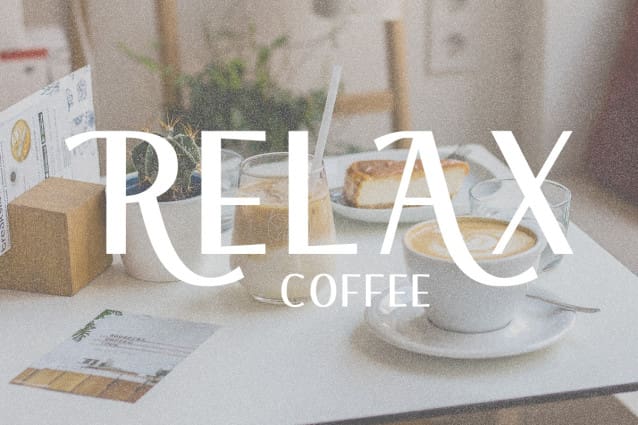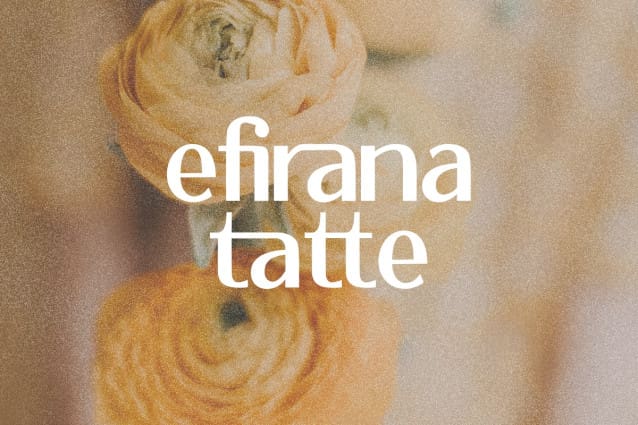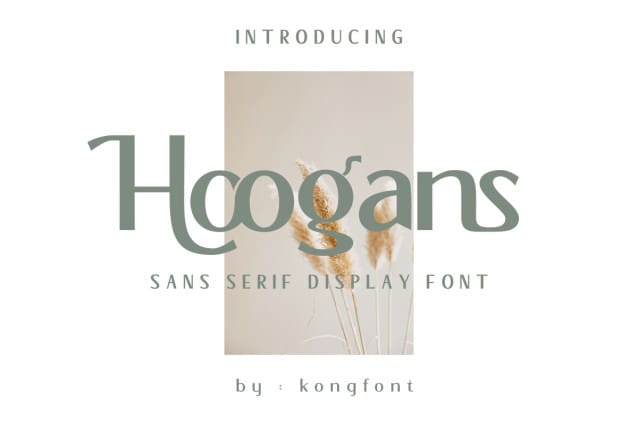
Hoogans Font
Hoogans Font – Modern Sans Serif Font is one of our Sans-Serif font collections. Although part of our modern fonts, Garnella Sans Serif Font is quite decorative in style and can serve as a centerpiece in layouts such as decorative typographic displays.
The design with very modern, simple, and clean but has the artistic feel of a decorative typeface. This font tries to liven things up with its style.
Hoogans Font – Modern Sans Serif Font has a line width that varies on each part and has a different appearance of swirls attached to some letters. This font is one of our many sans-serif fonts used for beauty product brand packaging and clothing brand advertising. Apart from the industrial field, this font is suitable for using equipment for a formal event, such as a large meeting that presents many people.
The simple but elegant impression attached to this font can make your product look very classy. This font is one of the considerations that you can use in choosing a font to accompany the product you are going to market. Because branding a product is crucial.